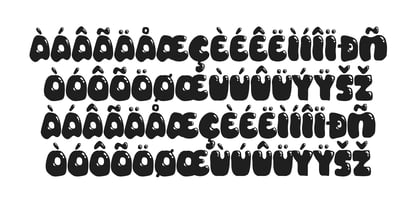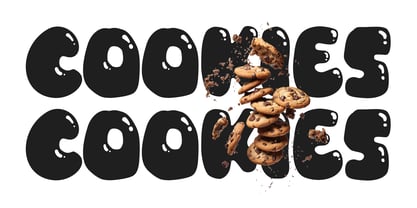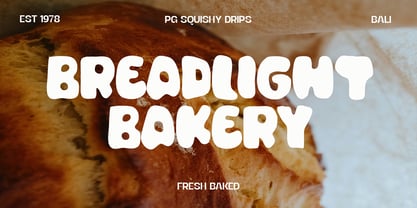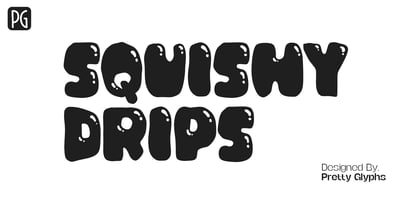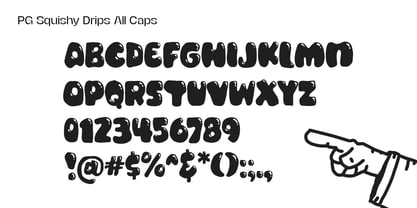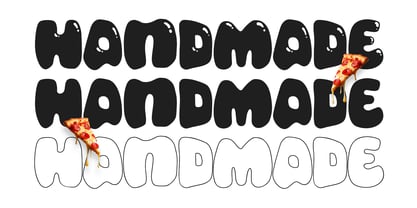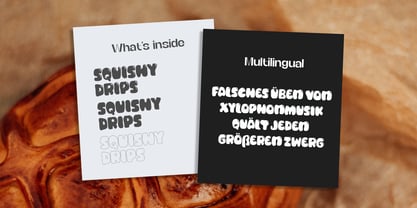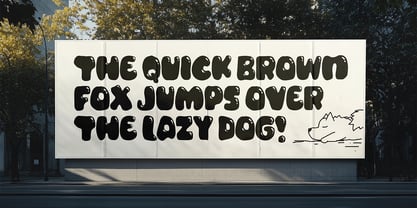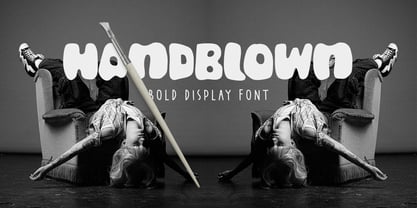
PG Squishy Drips
by Pretty Glyphs
The PG Squishy Drips Font Family was designed by Ulfa Tiara Putri and published by Pretty Glyphs. PG Squishy Drips contains 3 styles and family package options. More about this family
Squishy Drips is a bold, bubbly display font with soft curves and playful glossy details that instantly grab attention. Designed to bring a fun, cheerful, and eye-catching personality to your projects, it's perfect for logos, branding, posters, packaging, merchandise, stickers, social media, kids' designs, and more.
This font includes 3 versatile styles: Regular (Glossy), Clean, and Outline, giving you the flexibility to create unique combinations and stand-out typography for any creative project.
Whether you're designing something cute, playful, or bold, Squishy Drips adds a charming and memorable touch to every word.
Designers: Ulfa Tiara Putri
Foundry: Pretty Glyphs